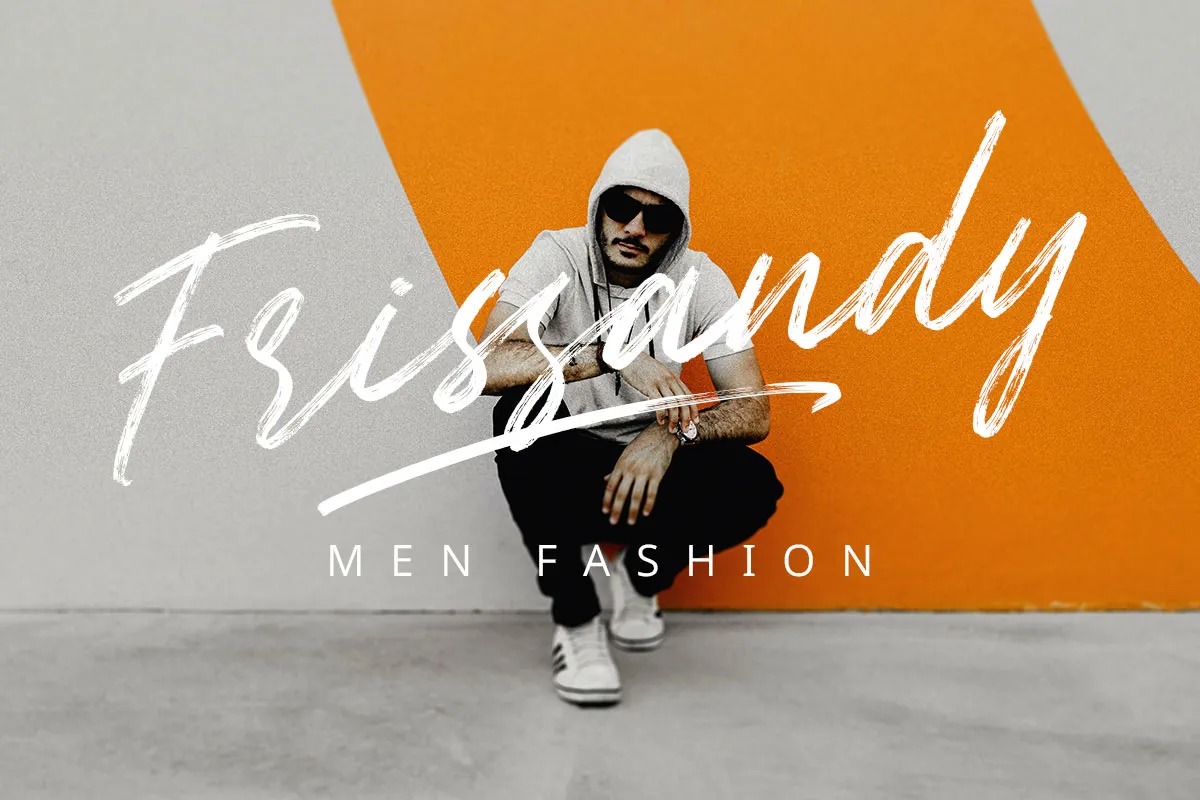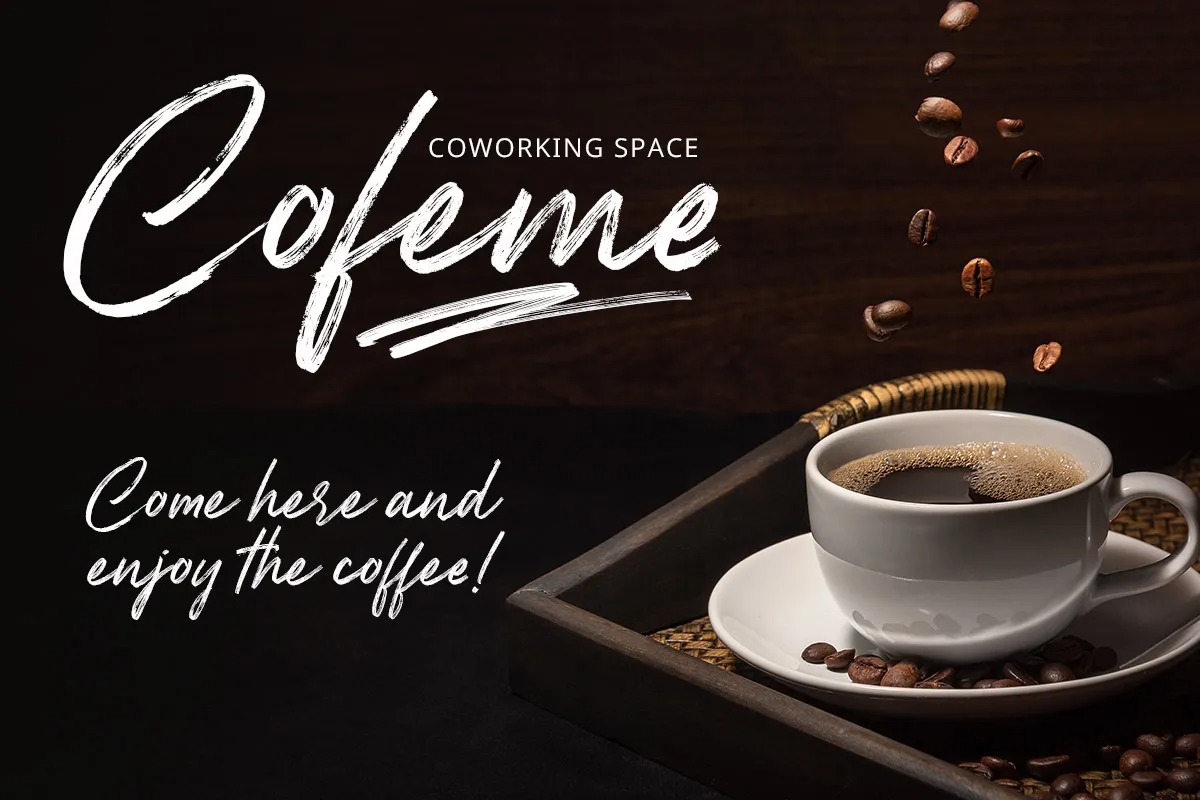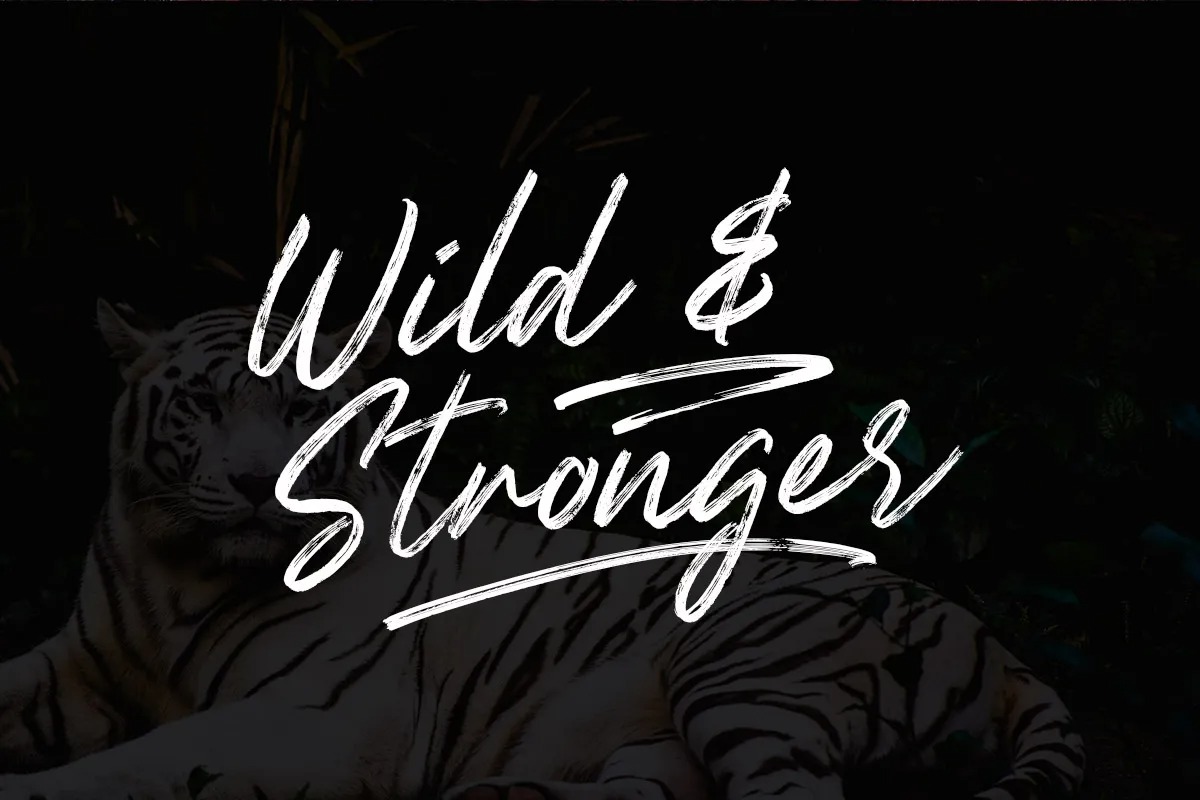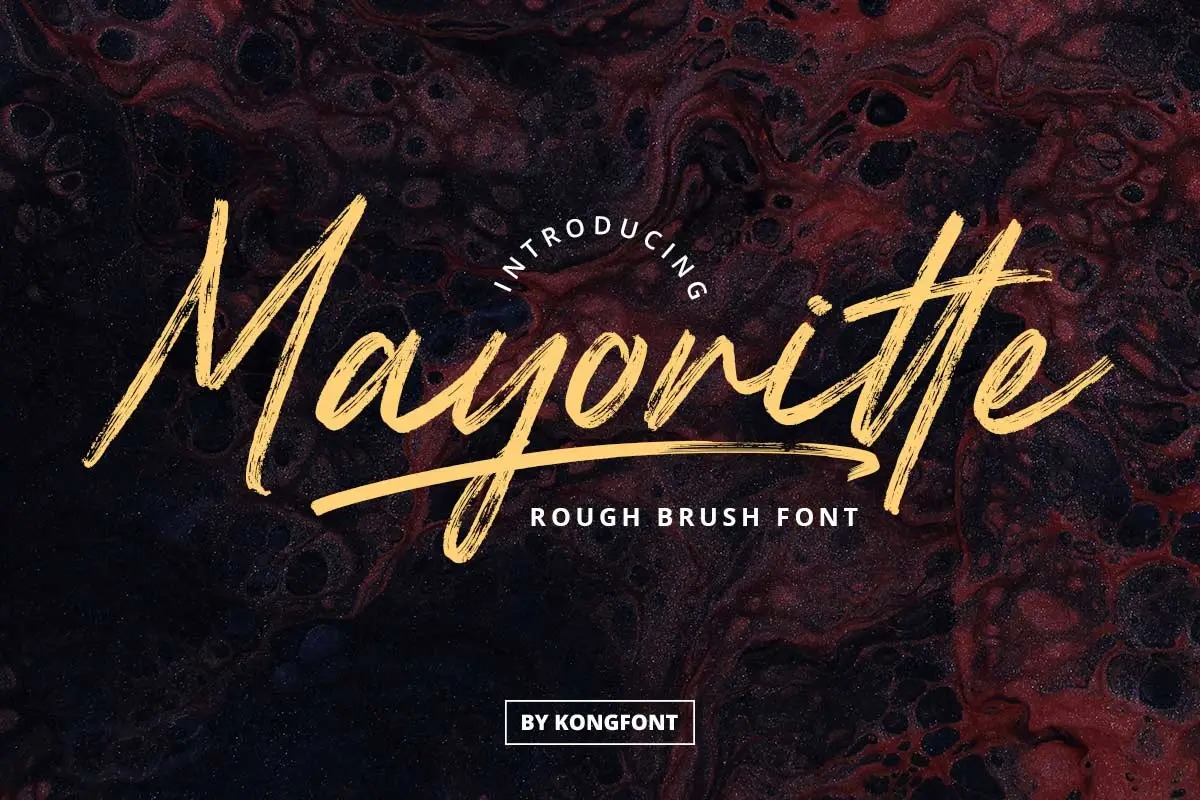
Mayoritte Font
Mayoritte Brush Font
This is a quick brush font. It’s designed and shared by fontkong. Mayoritte is a textured natural style and classy style with a clear style and dramatic movement. It looks stunning on wedding invitations, thank you cards, quotes, greeting cards, logos, business cards and any other design that requires a handwritten touch.